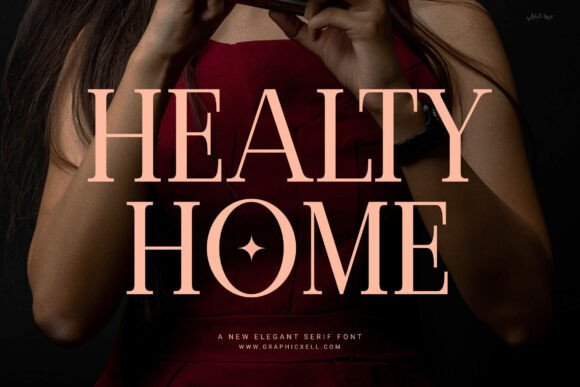
Healty Home Font: Elevate Your Brand with Elegance and Clarity
In the world of branding and design, the right typography can make all the difference. A well-chosen font can elevate your brand’s visual identity, convey its personality, and leave a lasting impression on your audience. If you’re looking for a font that exudes elegance, sophistication, and clarity, look no further than Healty Home Elegant Serif Font. In this article, we’ll explore the features, benefits, and uses of Healty Home, and why it’s an excellent choice for your branding needs.
What is Healty Home Elegant Serif Font?
Healty Home Elegant Serif Font is a modern serif font designed to give your brand a neat and elegant look. Its smooth and balanced letters are crafted to fit seamlessly into various designs, making it an versatile choice for a wide range of applications. Whether you’re creating logos, websites, magazines, or product labels, Healty Home ensures that your work looks clean, professional, and visually appealing.
Healty Home Font Example
The Benefits of Healty Home Elegant Serif Font
Healty Home offers several benefits that make it an attractive choice for designers and brands. Some of the key advantages include:
• Elegant and Sophisticated: Healty Home’s serif design gives it a classic, sophisticated look that’s perfect for brands that want to convey elegance and refinement.
• Clear and Readable: The font’s smooth and balanced letters ensure that your text is easy to read, even at small sizes.
• Versatile: Healty Home works well in various designs and industries, making it a great choice for a wide range of applications.
• Special Ligatures: The font includes special ligatures that help letters join nicely, making your text even more readable and visually appealing.
What Can You Use Healty Home For?
Healty Home Elegant Serif Font is a versatile font that can be used in various design projects, including:
• Business Logos and Brand Names: Create a professional and elegant logo that reflects your brand’s personality.
• Website Titles and Online Layouts: Use Healty Home to create visually appealing website titles, headings, and layouts.
• Magazine Pages and Articles: Add a touch of elegance to your magazine designs with Healty Home’s sophisticated serif font.
• Product Packaging and Labels: Make your product packaging stand out with Healty Home’s clear and readable font.
• Ads and Promotional Designs: Use Healty Home to create eye-catching ads and promotional materials that grab attention.
• Fashion and Food Brands: Healty Home is particularly well-suited for fashion and food brands that require a sophisticated and elegant visual identity.
Design Tips for Using Healty Home Elegant Serif Font
To get the most out of Healty Home, here are some design tips to keep in mind:
• Pair with Sans-Serif Fonts: Combine Healty Home with sans-serif fonts to create a nice contrast and add visual interest to your design.
• Use for Headings and Titles: Healty Home works best for headings and titles, so use it to create a clear visual hierarchy in your design.
• Experiment with Colors: Try out different colors and textures to add depth and personality to your design.
Why Choose Healty Home Elegant Serif Font?
In a world where typography plays a crucial role in branding and design, Healty Home Elegant Serif Font stands out as a versatile and sophisticated choice. Here are some reasons why you should consider Healty Home for your branding needs:
• Unique and Elegant Design: Healty Home’s serif design gives it a unique and elegant look that’s hard to find in other fonts.
• Highly Readable: The font’s smooth and balanced letters ensure that your text is easy to read, even at small sizes.
• Flexible and Versatile: Healty Home works well in various designs and industries, making it a great choice for a wide range of applications.
In conclusion, Healty Home Elegant Serif Font is an excellent choice for brands that want to elevate their visual identity with elegance and clarity. Its smooth and balanced letters, special ligatures, and versatile design make it perfect for a wide range of applications. Whether you’re creating logos, websites, magazines, or product labels, Healty Home ensures that your work looks clean, professional, and visually appealing. So why settle for a ordinary font when you can have a stylish and clear one like Healty Home?